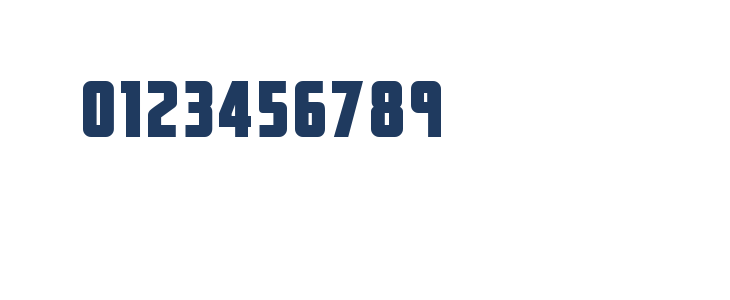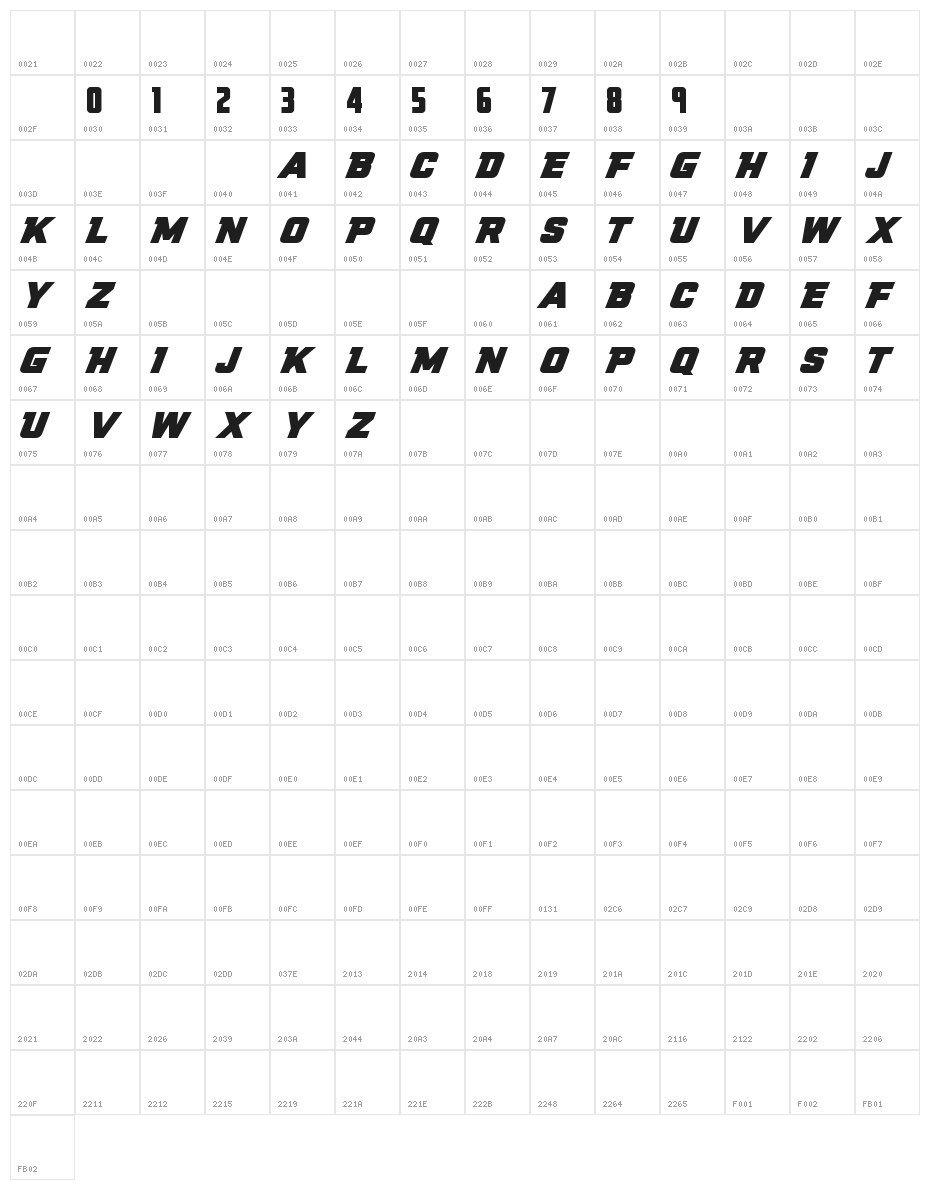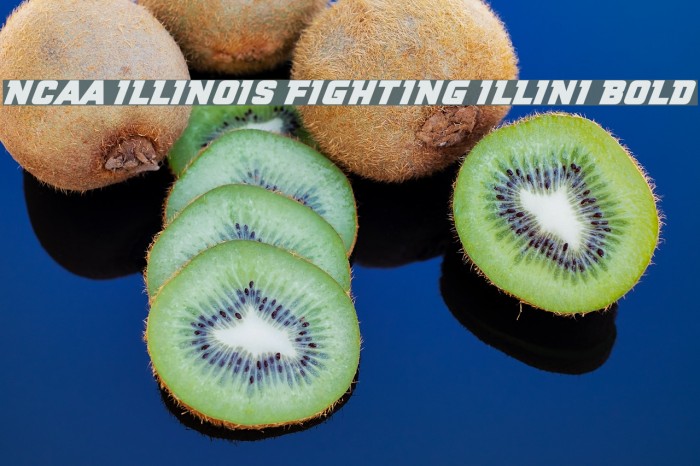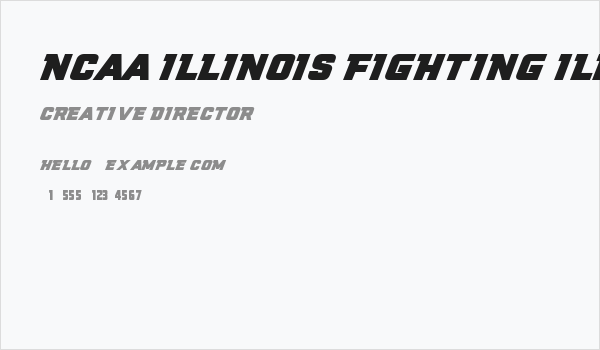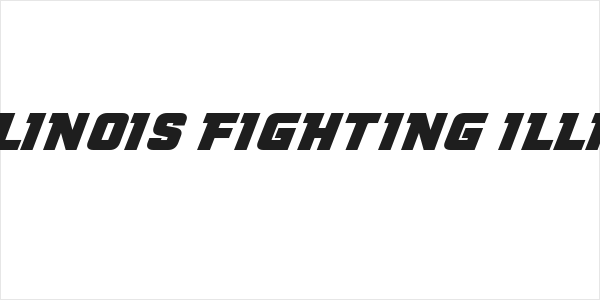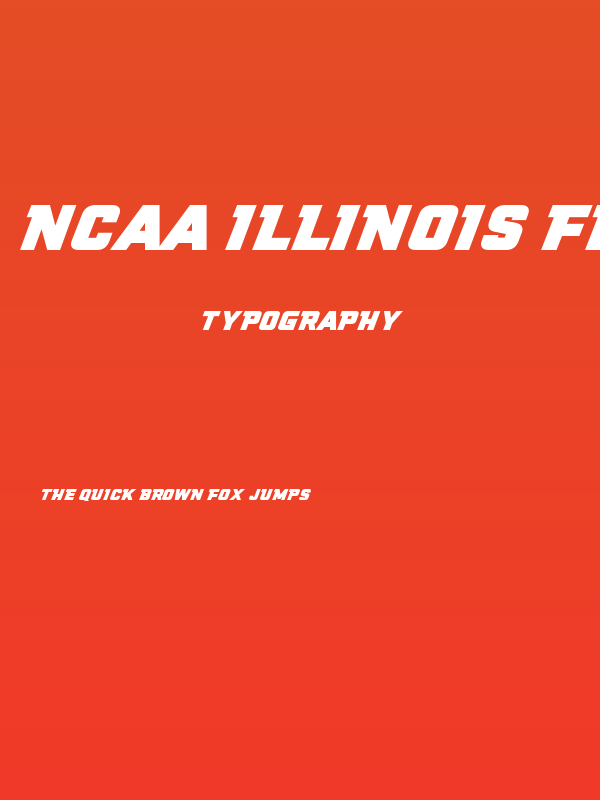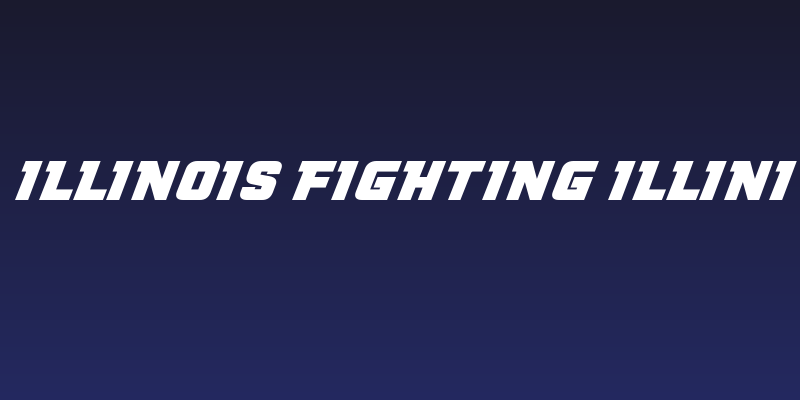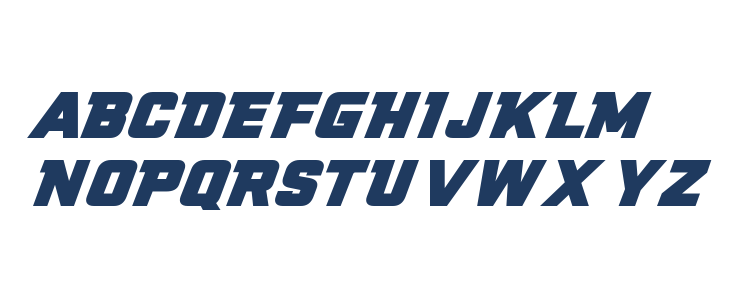
NCAA Illinois Fighting Illini Bold Font
NCAA Illinois Fighting Illini Bold Description
This bold and dynamic font features strong, angular lines with a slight slant, giving it a sense of motion and energy. The uppercase letters are prominent and commanding, making a strong visual impact. The numbers are equally bold, maintaining the same angular style, which ensures consistency across different uses. The font's design is clean and modern, with a sporty feel that makes it ideal for athletic or competitive contexts. Its boldness ensures high visibility and readability, even from a distance.